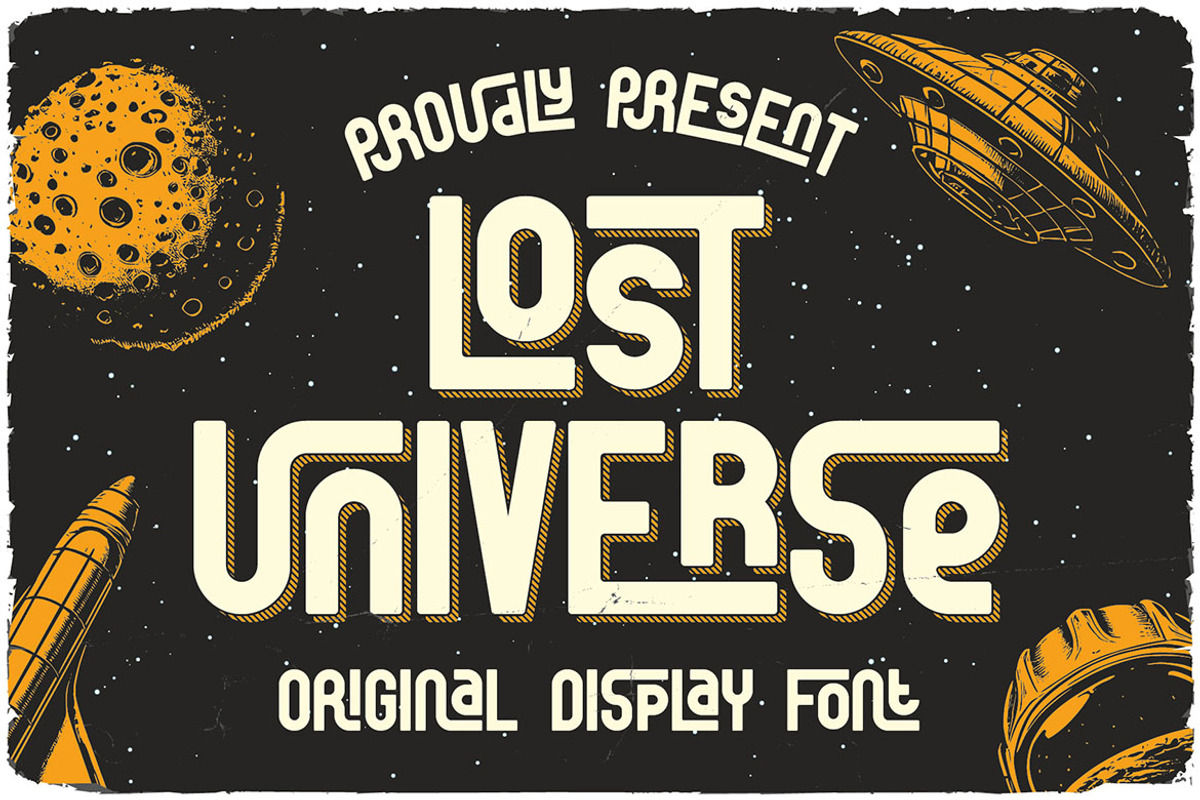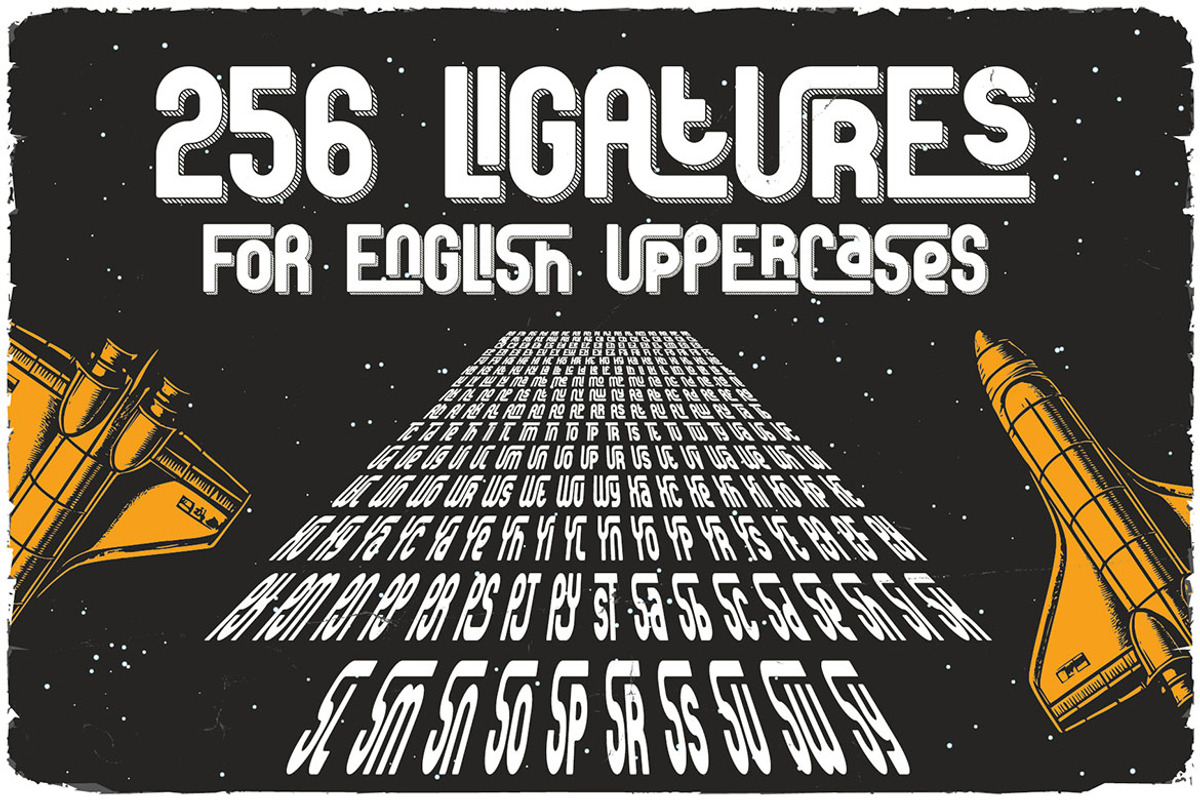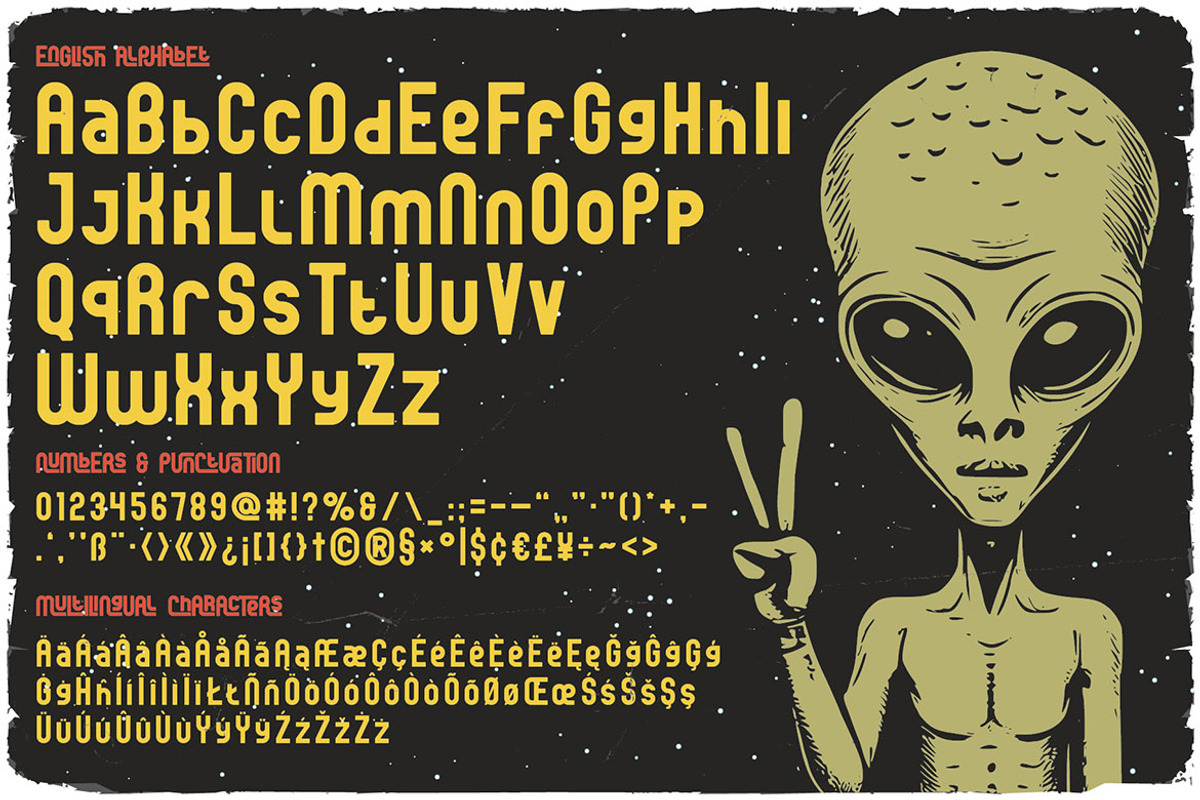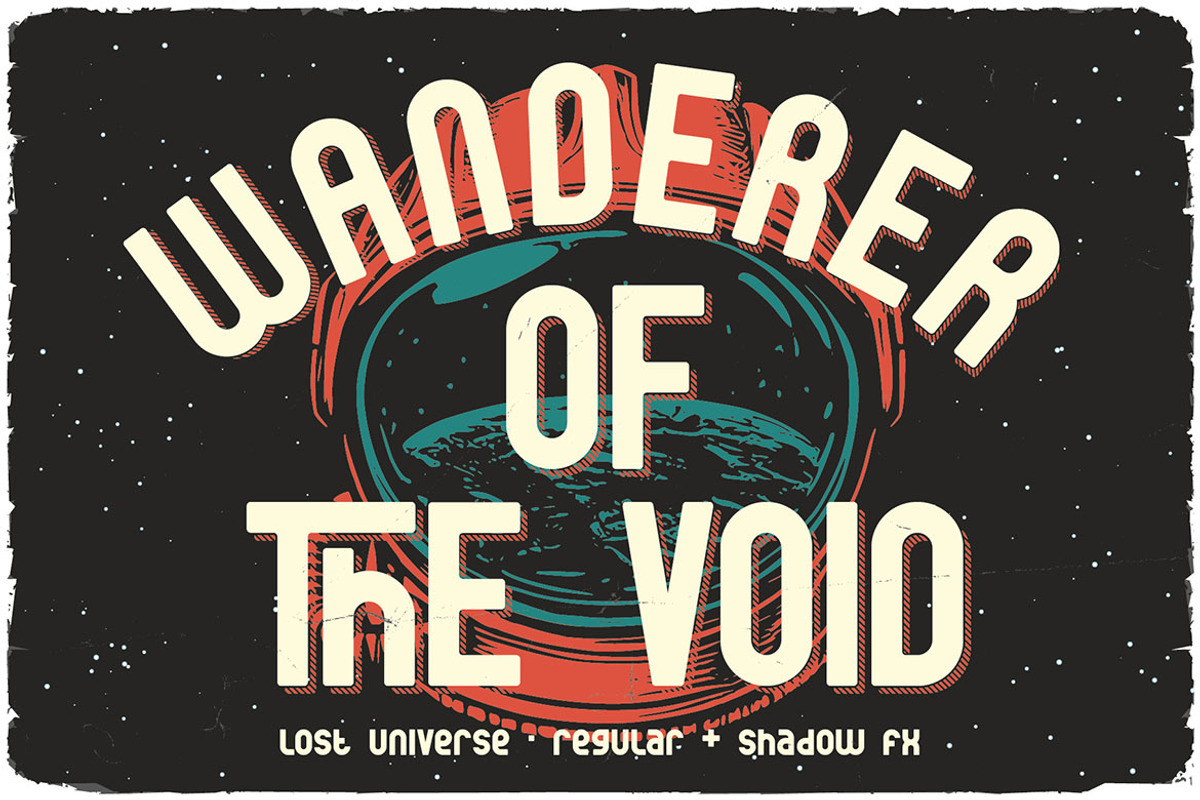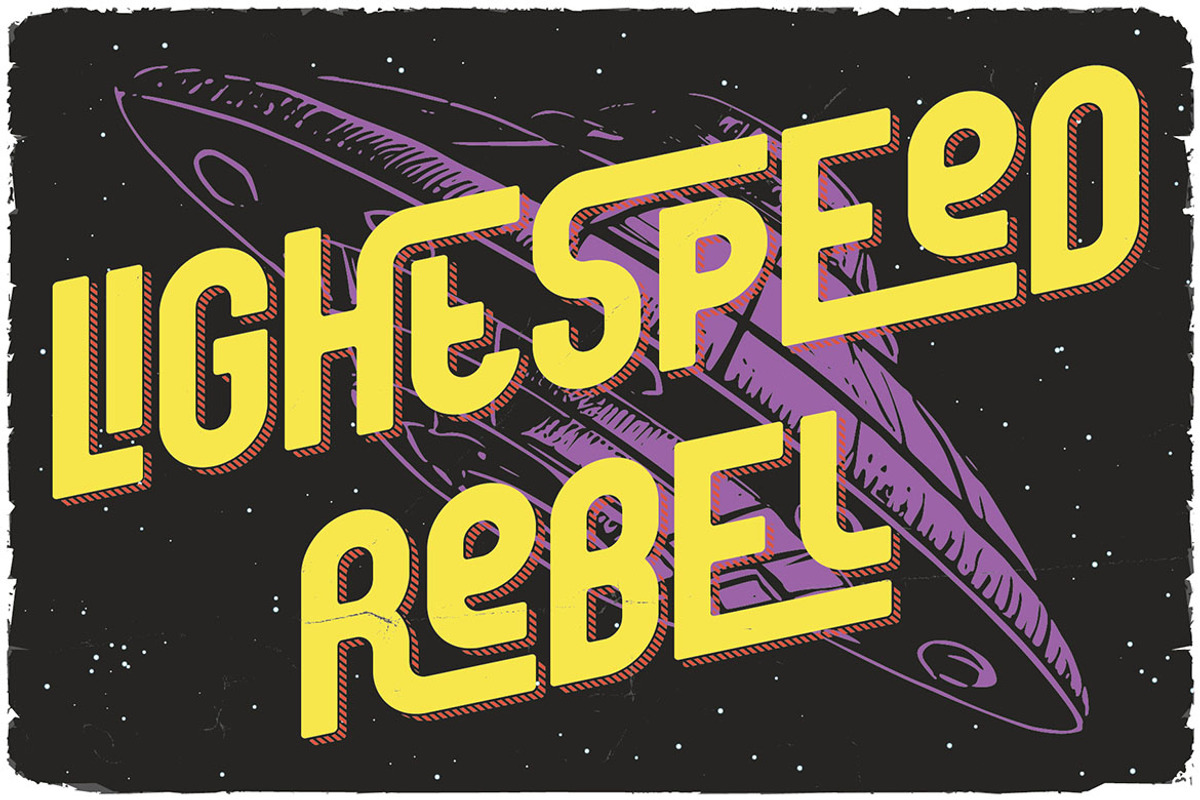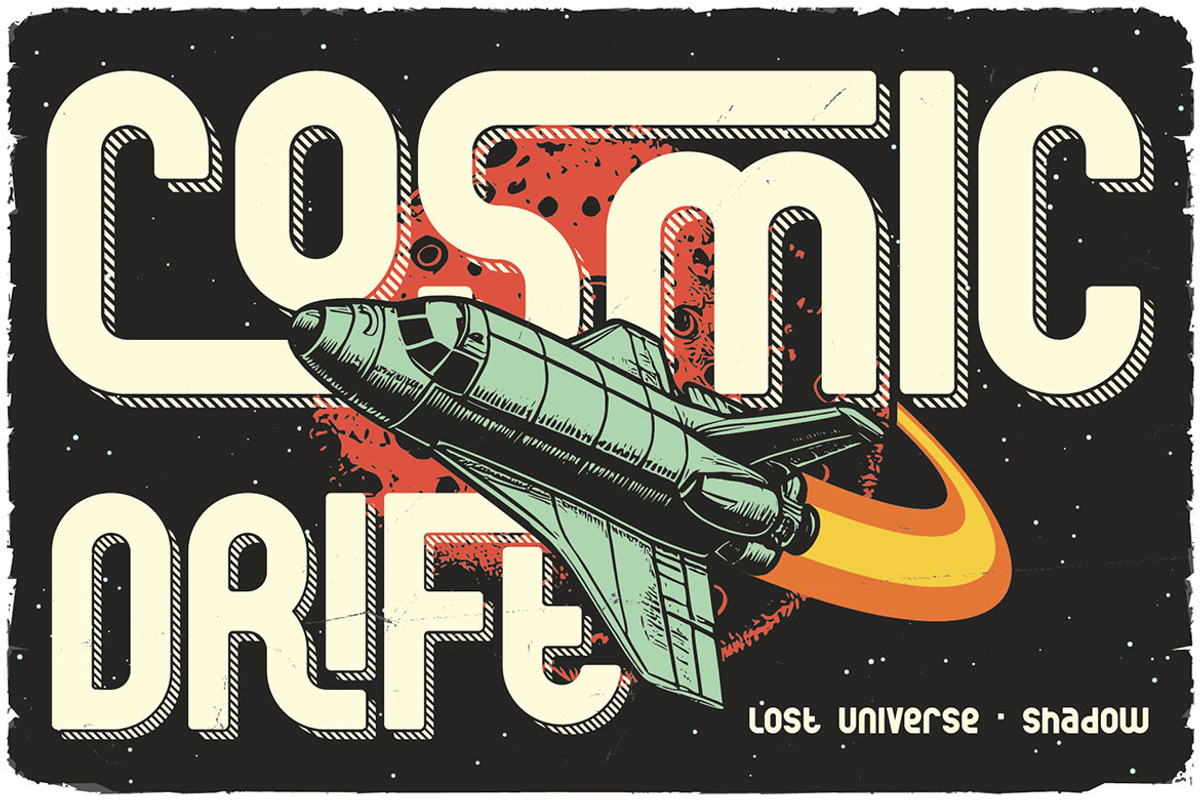
Lost Universe Ligature Display Font
Bold, playful, funny, casual, simple, retro & sans serif display font. Comes with multilingual support, 3 font versions & 256 ligatures - great for your new logo, monogram or branding project.
- 3 font versions - regular, shadow & shadow fx
- 256 ligatures
- Great for your new logo, monogram or branding project